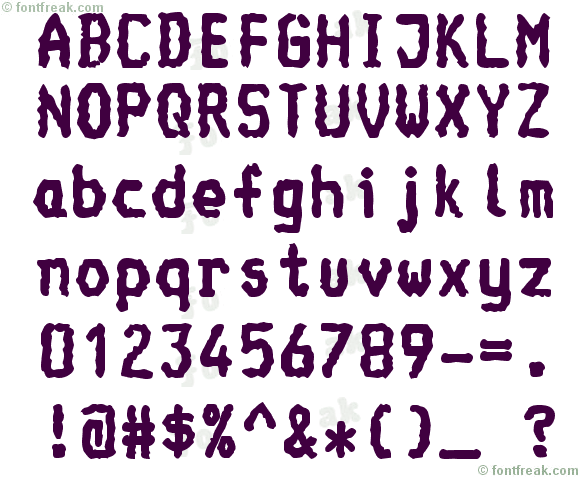
About Lettering
The Lettering font by Mark Zanzig is a unique display typeface that captures attention with its whimsical charm. This shareware font, created in 1995, features a bold and playful design, marked by its irregular strokes and varying thicknesses, which lend it a hand-crafted feel. The characters are generously spaced, enhancing readability while maintaining a lighthearted aesthetic that makes it stand out. The design has a distinctively quirky vibe, making it suitable for projects that require a touch of creativity and personality.
This font is ideal for a variety of applications, including eye-catching wedding invitations, vibrant movie posters, and engaging restaurant menus that aim to attract diners’ attention. Its playful nature also makes it a fantastic choice for children's book covers and playful branding for small businesses looking to convey a friendly atmosphere. Graphic designers and content creators will find the Lettering font particularly appealing due to its versatility and ability to add character to any project.
Targeted at creative professionals and small business owners, the Lettering font allows for personal expression while maintaining clarity. It appeals to those looking to differentiate their work with a font that embodies a sense of fun and originality.
What sets the Lettering font apart is its ability to evoke a sense of joy and creativity, making it perfect for projects that aim to connect with audiences on an emotional level. Its unique style and shareware licensing make it accessible for various uses, including a Lettering font free download for those eager to incorporate this delightful typeface into their design toolkit. Whether for professional or personal use, this font offers a captivating option for those looking to make a memorable impact.